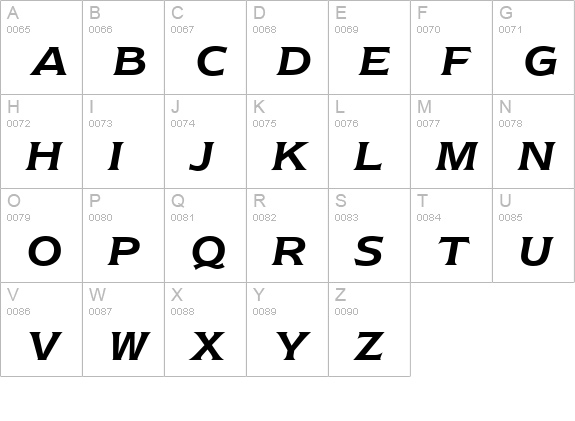
Nebraska-BoldItalic Font Details
Nebraska-BoldItalic font is a striking and modern typeface that exudes confidence and sophistication. Its bold and italic design commands attention, making it perfect for headlines, titles, and branding materials. The sleek lines and sharp angles of Nebraska-BoldItalic add a touch of elegance to any design project. What makes Nebraska-BoldItalic even more appealing is that it is **free** to download at FontsMarket.com. This means you can enhance your creative projects without any cost constraints. Whether you're designing a website, creating marketing materials, or working on a personal project, Nebraska-BoldItalic is a versatile font that will elevate your work to the next level. Don't miss out on the opportunity to add Nebraska-BoldItalic to your font collection. Download it for **free** today at FontsMarket.com and start creating stunning designs with this bold and stylish typeface.